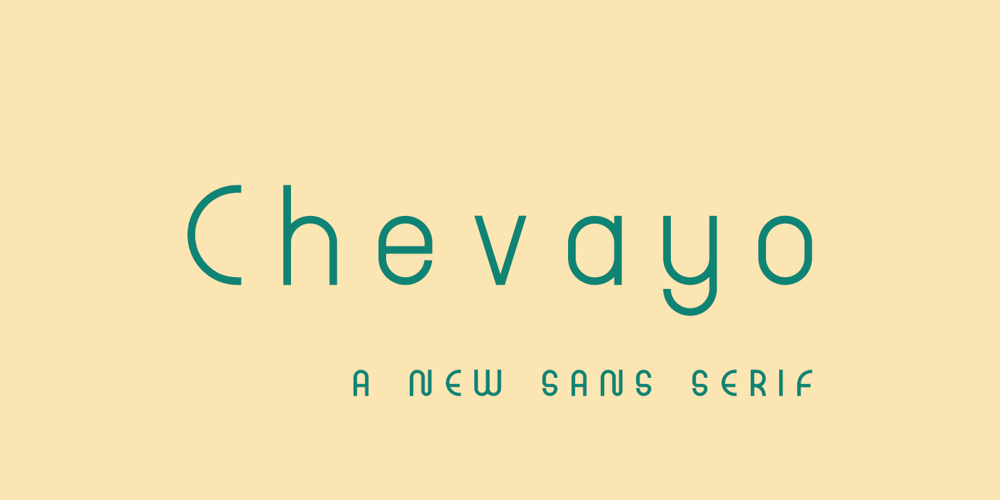
Chevayo Font Family was designed by Afif Hidayat Alhabsi and published by Lafitte 58. Chevayo contains 4 styles and family package options. Chevayo is a modern look without the fonts. Made for professional project branding. Each letter has a unique and beautiful touch.the files you will get are:• Works on PC & Mac• Simple installation• Can be accessed in Adobe Illustrator, Adobe Photoshop.• Long-term support, free features and bug fixes